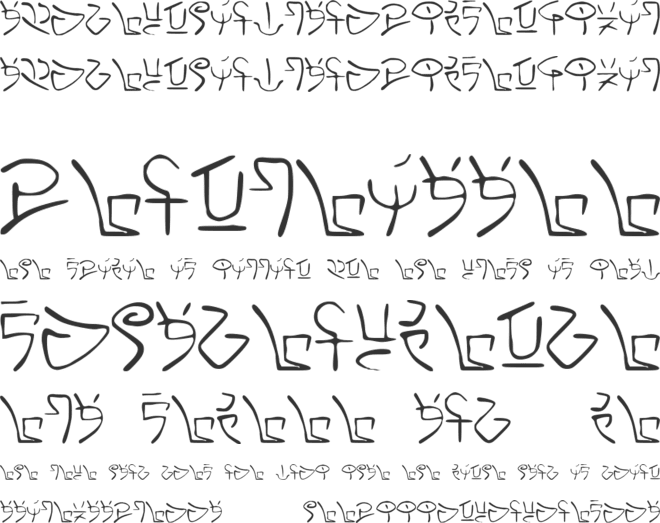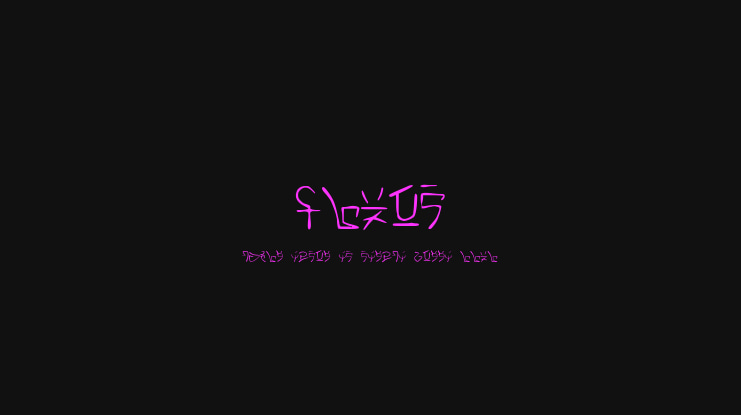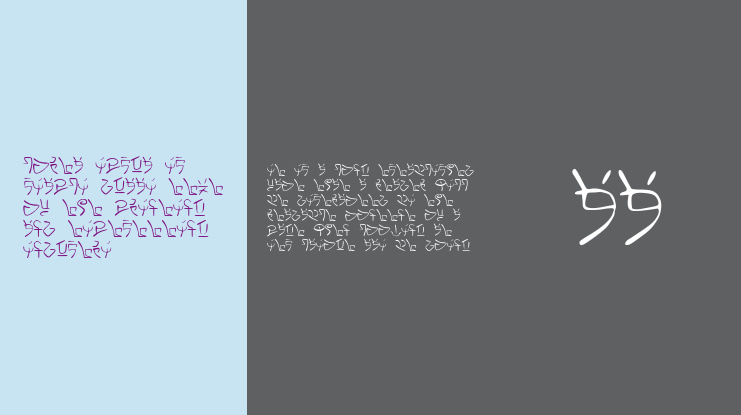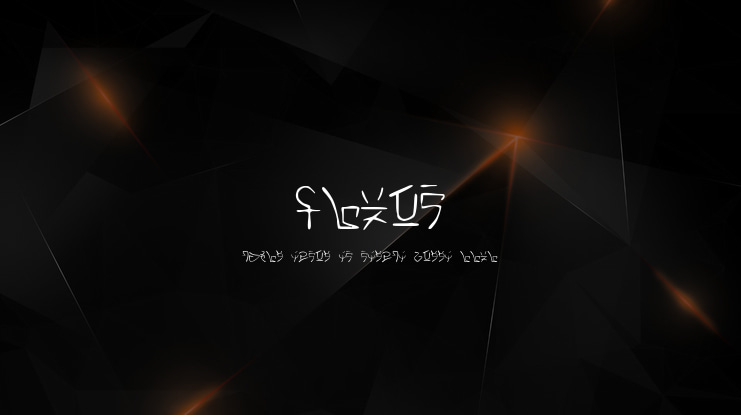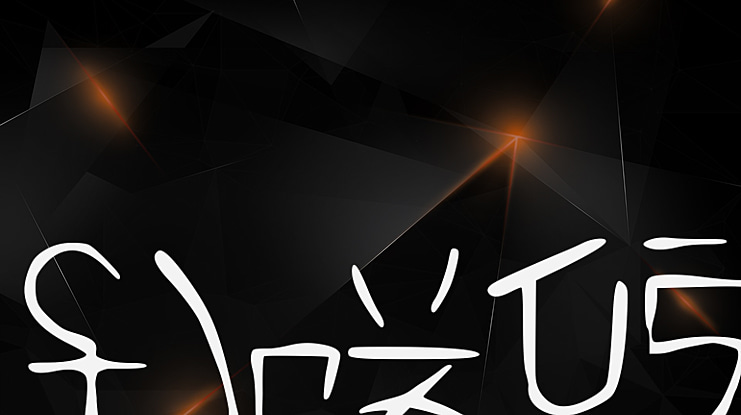
Nexus Font
A font based on the language found in the mmo "Wildstar". These symbols are randomized during interfaction chat scrambling, so it is likely they have no real meaning in the context of the game. This font has 20 unique symbols in total, duplicates found only on the vowels. Great for secret messages or spicing up fanart!